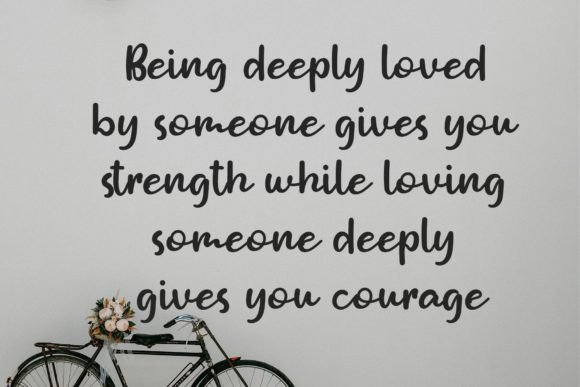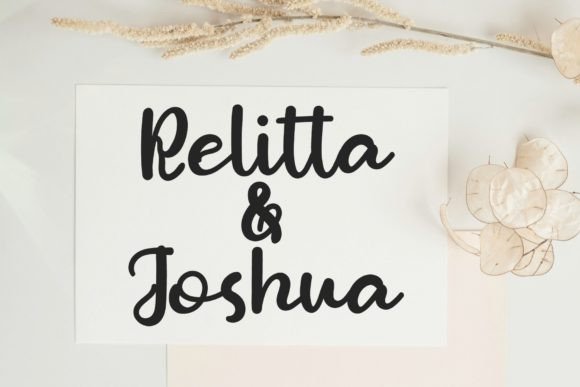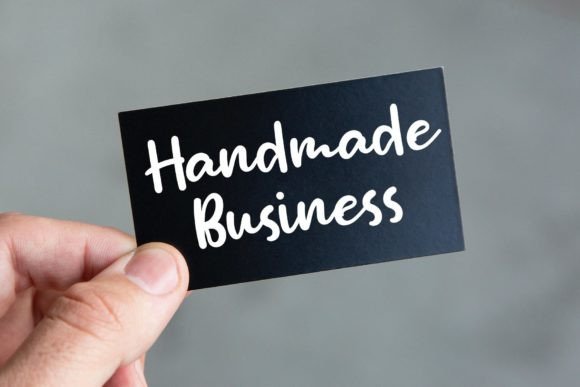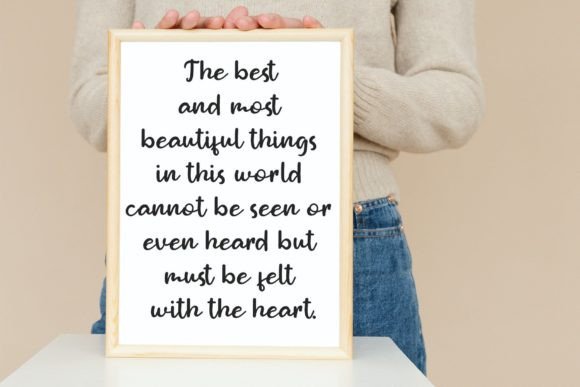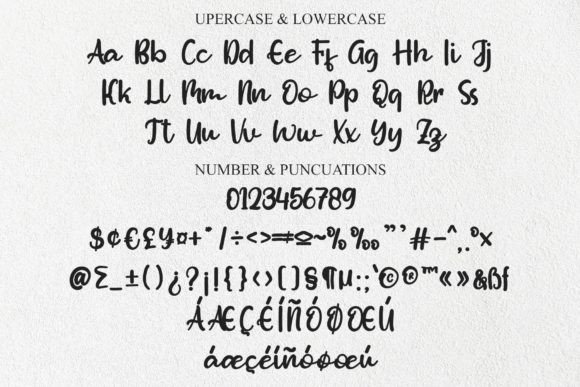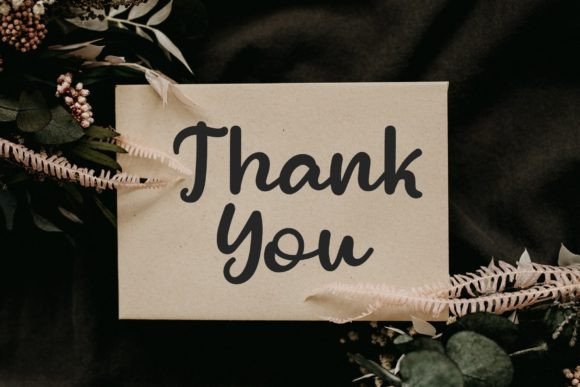
Introducing Camper Font: A Lovely and Timeless Handwritten Font
Are you a designer or crafter looking for a font that can add a touch of personality and elegance to your designs? Look no further than Camper Font! This beautiful handwritten font is perfect for creating eye-catching logos, branding, and quotes that will make your design come alive.
What Makes Camper Font So Special?
Camper Font is a lovely and timeless handwritten font that is sure to capture the attention of your audience. Every letter has a unique and beautiful touch, which sets it apart from other fonts. The font’s handmade feel gives it a warm and inviting appearance that is perfect for a wide range of design projects.
Camper Font is the best choice for creating eye-catching logos, branding, and quotes. Its elegant and cursive style makes it perfect for designs that require a touch of sophistication and personality. Whether you’re creating a logo for a new business or designing a quote for social media, Camper Font is sure to make your design stand out.
Unique and Beautiful Touch
One of the standout features of Camper Font is its unique and beautiful touch. Every letter has been carefully crafted to ensure that it is not only aesthetically pleasing but also highly legible. This makes it perfect for designs that require a combination of style and substance.
Why Choose Camper Font?
So why choose Camper Font over other fonts? Here are just a few reasons:
- Unique and handmade feel: Camper Font has a unique and handmade feel that sets it apart from other fonts.
- Elegant and cursive style: The font’s elegant and cursive style makes it perfect for designs that require a touch of sophistication and personality.
- Highly legible: Every letter has been carefully crafted to ensure that it is highly legible, making it perfect for designs that require a combination of style and substance.
- Perfect for a wide range of design projects: Camper Font is perfect for a wide range of design projects, from logos and branding to quotes and social media graphics.
- Use it for headlines and titles: Camper Font is perfect for headlines and titles, where its elegant and cursive style can really shine.
- Experiment with different colors and textures: Camper Font looks great in a variety of colors and textures, so don’t be afraid to experiment and find the perfect combination for your design.
- Pair it with other fonts: Camper Font can be paired with other fonts to create a unique and interesting design. Try pairing it with a bold sans-serif font for a striking contrast.
| Font Name | Camper Font |
| Author | Bintang Studio |
In conclusion, Camper Font is a lovely and timeless handwritten font that is perfect for designers and crafters looking to add a touch of personality and elegance to their designs. Its unique and beautiful touch, elegant and cursive style, and high legibility make it perfect for a wide range of design projects. Whether you’re creating a logo, branding, or quote, Camper Font is sure to make your design come alive!